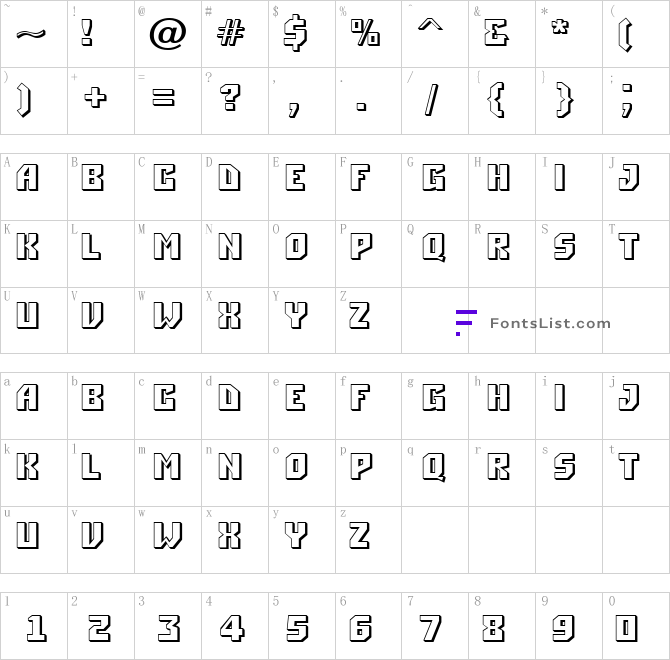
- Font Name:a_Simpler3D
a_Simpler3D.ttf is a very beautiful artistic font, a_Simpler3D.ttf is widely used in the design and printing of various books and pictures,a_Simpler3D.ttf has a strong visual impact,a_Simpler3D.ttf is a commonly used font in newspapers, magazines and books, and is used in posters, e-commerce Poster design, store design, logo design, font design and other fields.a_Simpler3D.